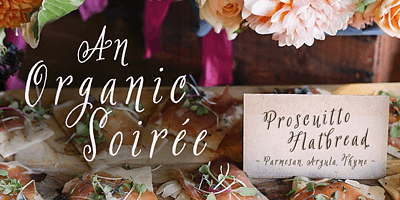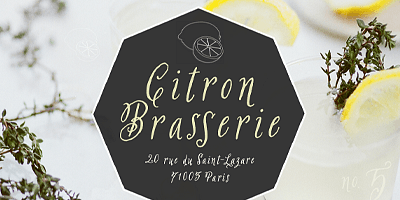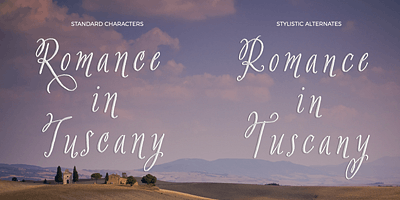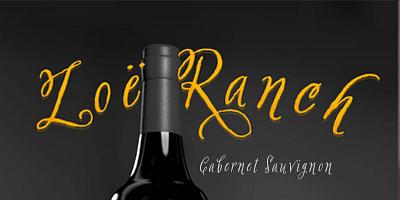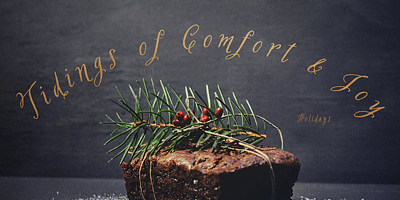
Hand-calligraphed San Rafael is a flirty non-script option, it includes alternate glyphs & ligatures accessible in OpenType. Perfect for packaging, logotypes, book titles, gifts & stationery goods.